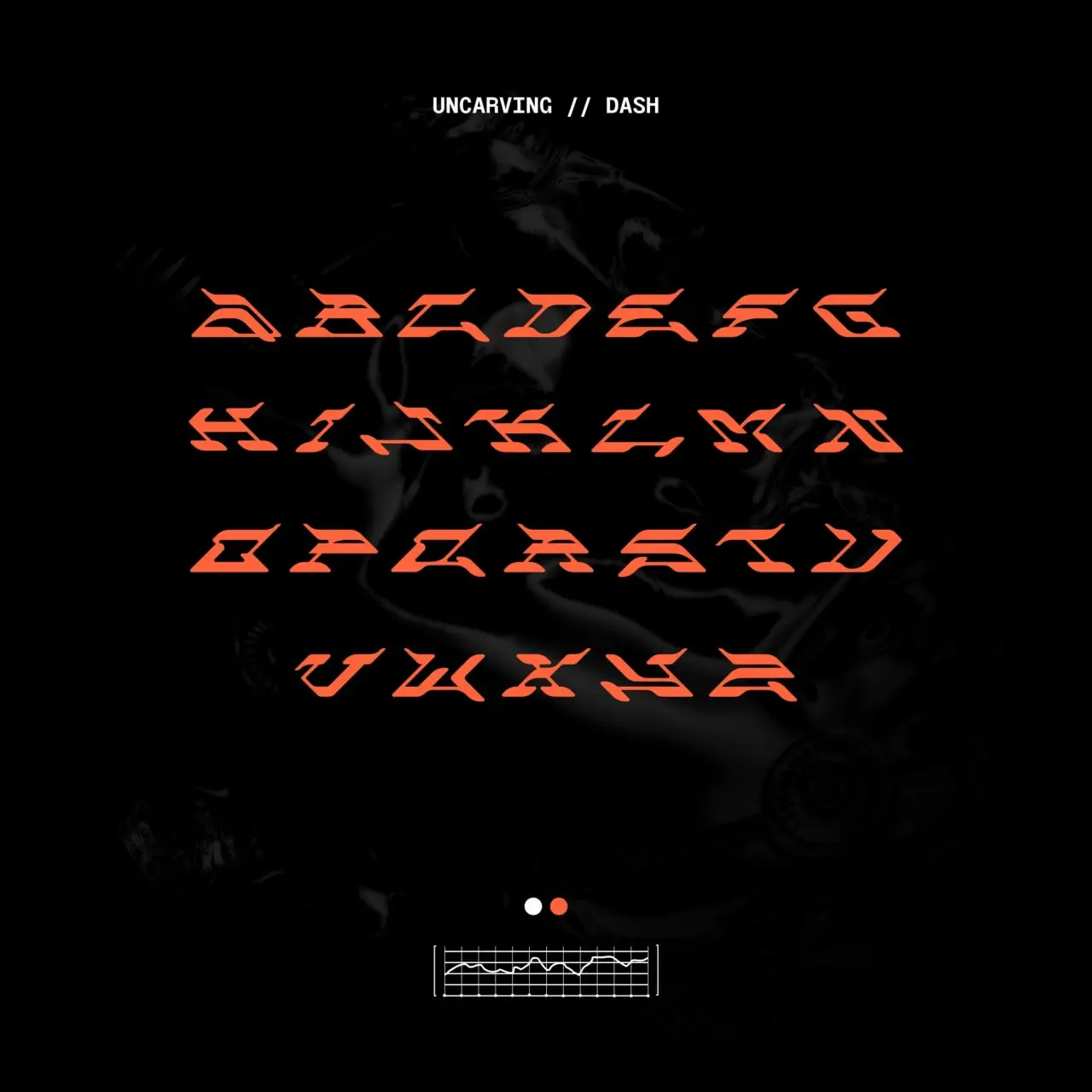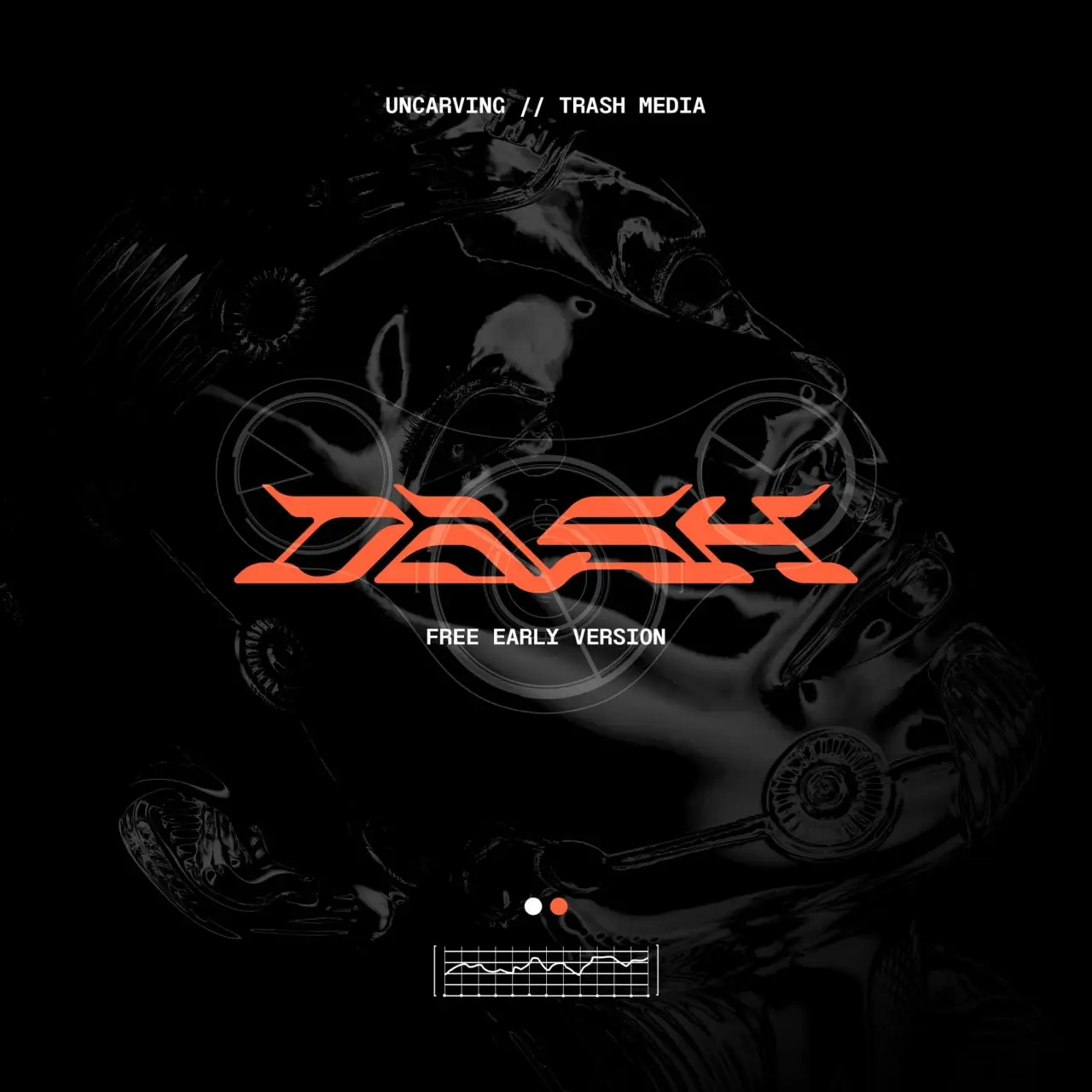
Dash Early Display Font By Un Carving
The Dash Early Display Font by Un Carving is a unique typeface designed to make a statement. This font features a bold and playful style, perfect for eye-catching headlines and branding projects. With its distinct character shapes, it adds a creative touch to any design.
• Ideal for branding, logos, and promotional materials.
• Great for web and print applications.
• Use in user interfaces for a modern look.